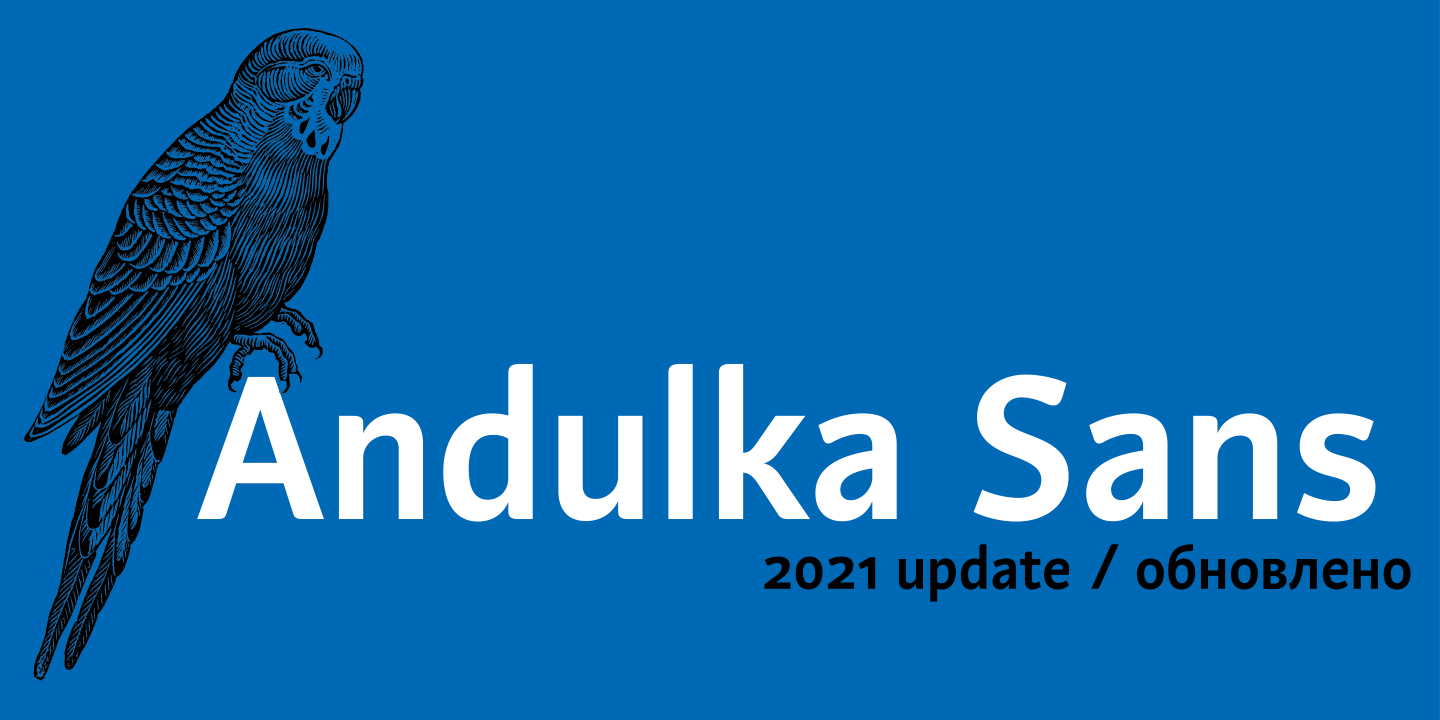
The Andulka Sans Font is perfect for modern web design, mobile applications, user interface elements, contemporary branding, editorial layouts, digital magazines, clean advertising campaigns, and minimalist packaging designs. This versatile typeface excels in tech startups, creative agencies, design studios, lifestyle brands, and any organization seeking to communicate modernity, simplicity, and sophisticated functionality in their visual communications.
What makes Andulka Sans Font so exciting is its perfect balance between geometric precision and humanistic warmth that creates an exceptionally friendly yet professional aesthetic. The font features clean, contemporary letterforms with subtle rounded edges, optimal x-height proportions, and carefully crafted details that ensure outstanding readability across all digital platforms. Its modern design philosophy embraces minimalism while maintaining distinctive character that helps brands stand out in crowded markets.
The Andulka Sans Font family includes comprehensive weight variations: Thin, Extra Light, Light, Regular, Medium, Semi Bold, Bold, Extra Bold, and Black versions, each available in upright and italic styles. Additionally, it offers condensed and extended variants, along with extensive character sets supporting multiple languages, advanced OpenType features, and specialized symbols for contemporary typography applications.
When you choose Andulka Sans Font Free Download, you're selecting a typeface that embodies contemporary design principles while ensuring timeless appeal and functionality. This font seamlessly adapts to both large display applications and extended body text, maintaining clarity and elegance at all sizes. The carefully engineered spacing and proportions create harmonious layouts that enhance user experience and strengthen brand communication effectiveness.
Whether you're developing cutting-edge websites, creating modern marketing materials, designing intuitive user interfaces, or establishing a fresh brand identity system, this font delivers exceptional performance and visual impact. The Andulka Sans Font transforms your content into polished, contemporary communications that resonate with modern audiences while maintaining professional credibility and accessibility.
This outstanding typeface represents the evolution of sans-serif typography, combining clean modernist principles with warm, approachable characteristics. Download this remarkable font today and experience how thoughtful typography can elevate your projects, improve readability, and create memorable brand experiences that connect with contemporary audiences.